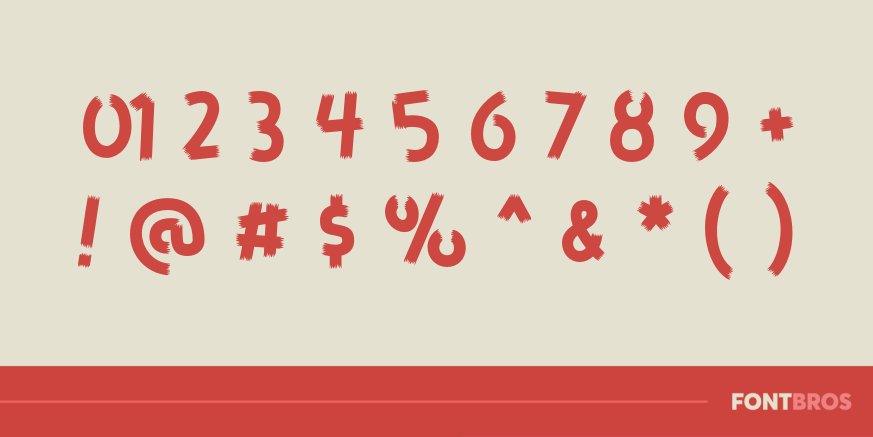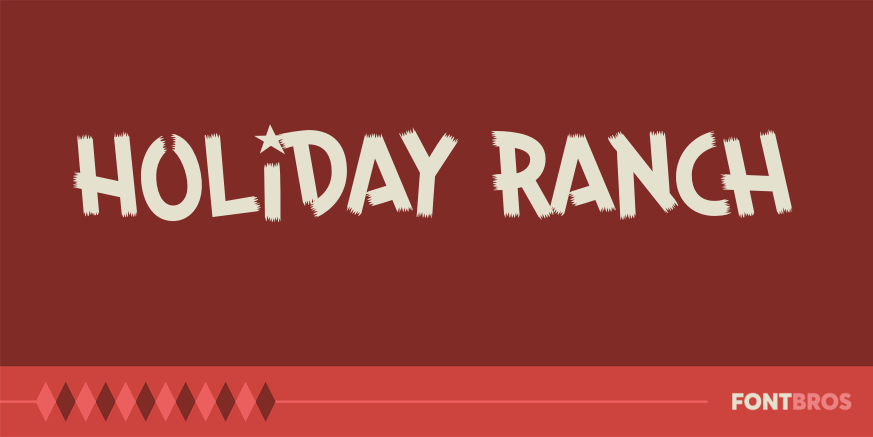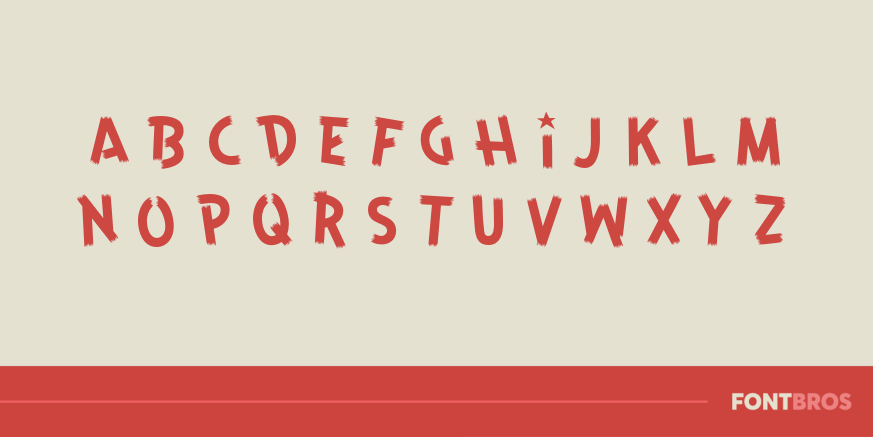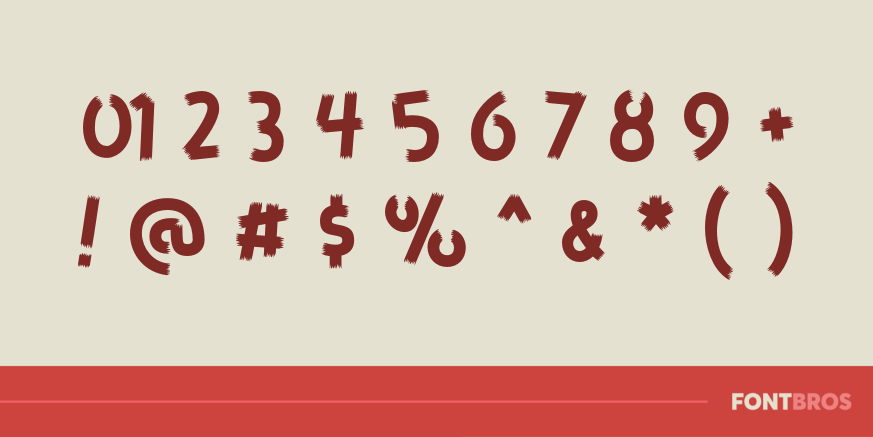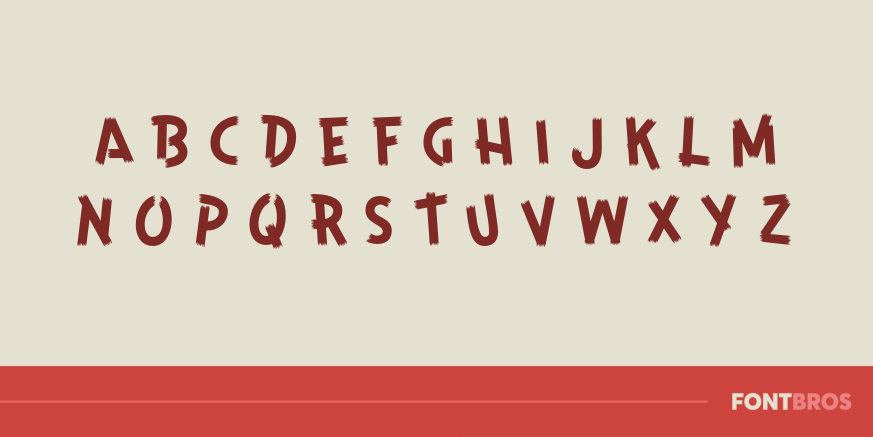
Holiday Ranch
Font Family by Font Diner
Pack your bags! It's time to saddle up and head on over to the Holiday Ranch! This playful tipsy font looks like it was painted on with a big fat paintbrush!